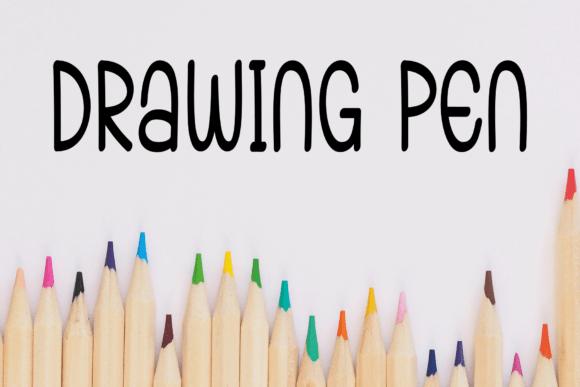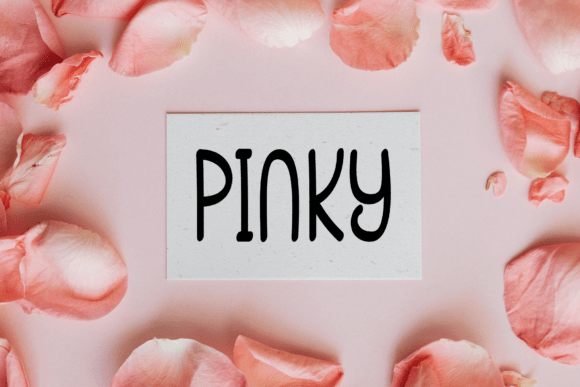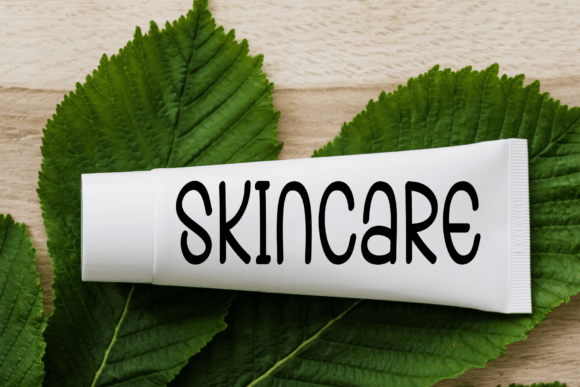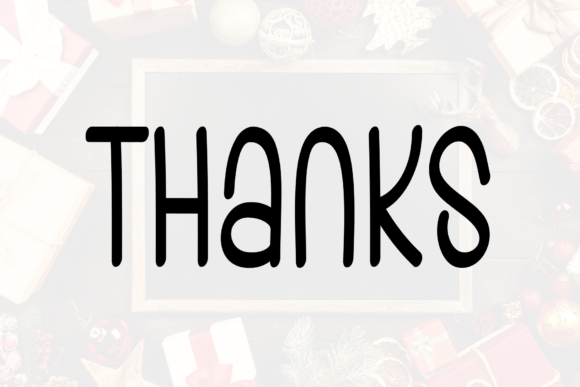
Introducing Couple Font: The Sweet and Beautiful Handwritten Font for Your Design Projects
Are you looking for a font that can add a touch of warmth and coziness to your design projects? Look no further than Couple Font, a sweet and beautiful handwritten font that is sure to capture the hearts of designers and crafters alike. Featuring characters that dance along the baseline, this font is perfect for creating a wide range of designs, from romantic and whimsical to rustic and charming.
What Makes Couple Font So Special?
Couple Font is a unique and eye-catching font that stands out from the crowd. Its handwritten style gives it a personal and intimate feel, making it perfect for designs that require a touch of warmth and personality. The font’s characters are carefully crafted to dance along the baseline, creating a sense of movement and energy that is sure to capture the attention of your audience.
One of the things that sets Couple Font apart from other fonts is its versatility. Whether you’re creating a romantic wedding invitation, a rustic wooden sign, or a whimsical children’s book, this font is sure to add a touch of magic to your design. Its sweet and beautiful style makes it perfect for a wide range of design projects, from DIY crafts to professional design work.
Features of Couple Font
Couple Font has a number of features that make it a standout font for designers and crafters. Some of its key features include:
• Handwritten style: Couple Font has a beautiful handwritten style that gives it a personal and intimate feel.
• Dancing characters: The font’s characters are carefully crafted to dance along the baseline, creating a sense of movement and energy.
• Versatile: Couple Font is perfect for a wide range of design projects, from romantic and whimsical to rustic and charming.
Uses for Couple Font
Couple Font is a versatile font that can be used for a wide range of design projects. Some of the most popular uses for this font include:
• Wedding designs: Couple Font is perfect for creating romantic wedding invitations, save the dates, and other wedding-related designs.
• DIY crafts: This font is great for DIY craft projects, such as making personalized signs, banners, and other decorations.
• Children’s books: Couple Font is a great choice for children’s books, adding a touch of whimsy and fun to your illustrations.
• Social media graphics: This font is perfect for creating social media graphics, such as Facebook posts, Instagram stories, and Pinterest pins.
Tips for Using Couple Font
Here are a few tips for using Couple Font in your design projects:
• Pair with other fonts: Couple Font pairs well with other fonts, such as sans-serif fonts and script fonts.
• Experiment with colors: This font looks great in a variety of colors, from bright and bold to soft and pastel.
• Use for headings and titles: Couple Font is perfect for headings and titles, adding a touch of personality and whimsy to your design.
Font Name Couple Font
Author ArtLine Design
Couple Font is a sweet and beautiful handwritten font that is sure to add a touch of warmth and coziness to your design projects. With its dancing characters and versatile style, this font is perfect for a wide range of designs, from romantic and whimsical to rustic and charming. Whether you’re a designer or crafter, Couple Font is a great choice for adding a personal touch to your work.